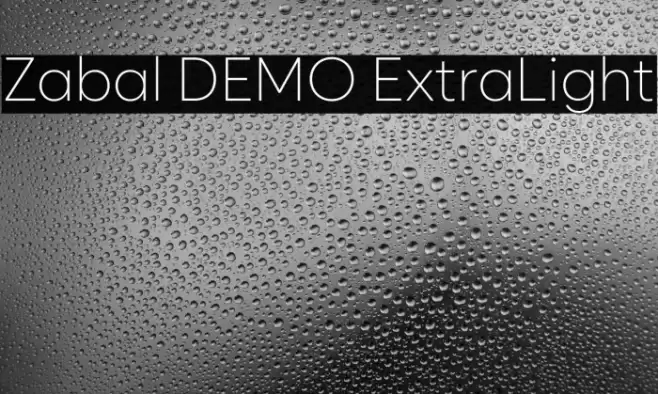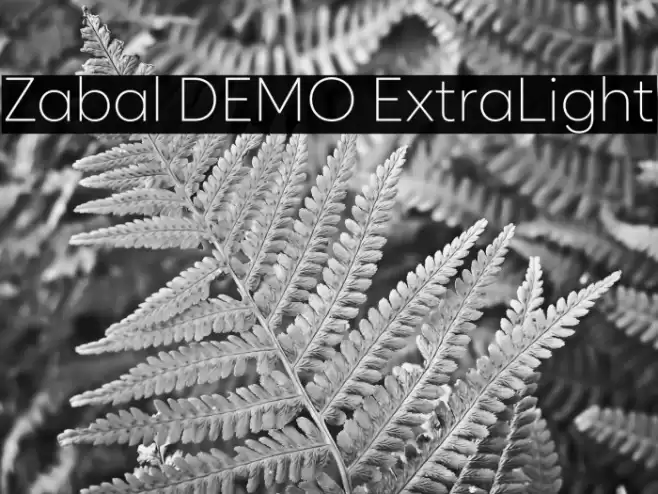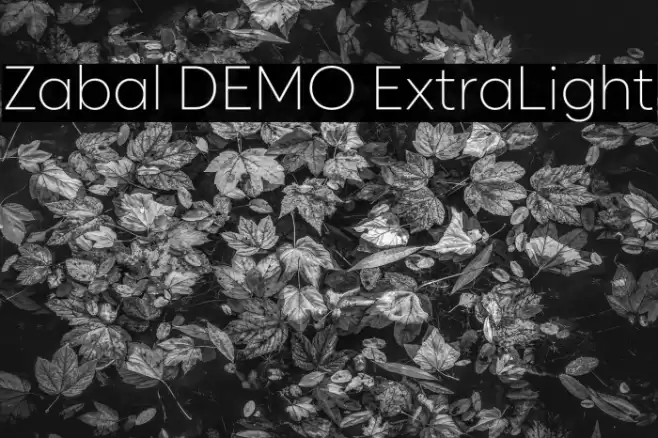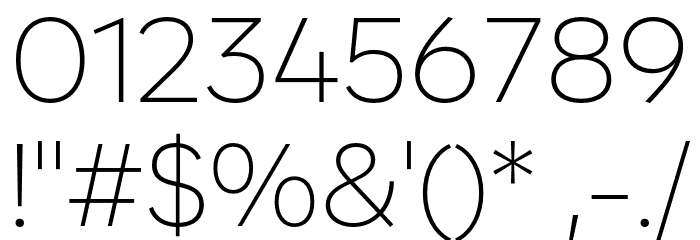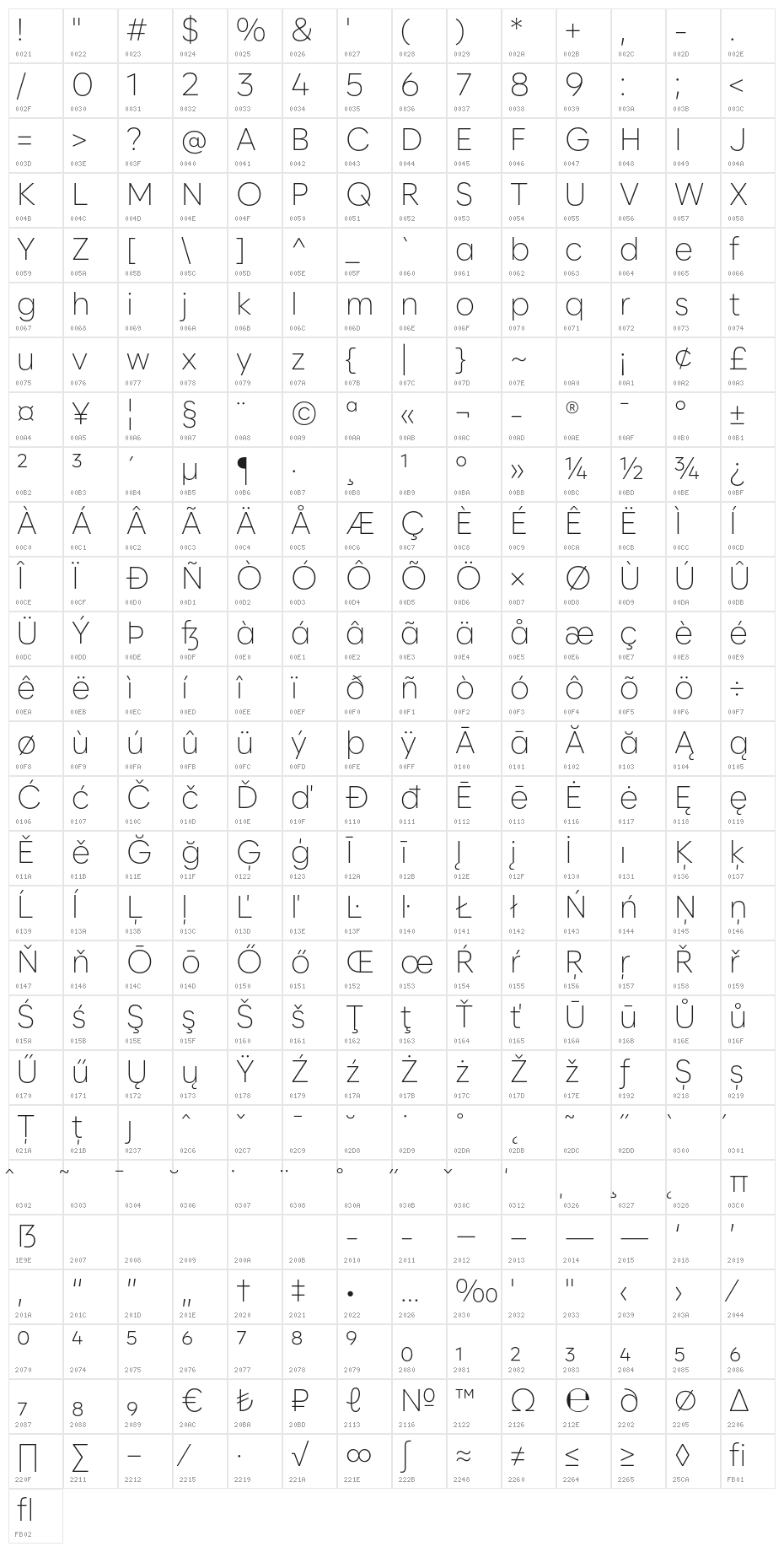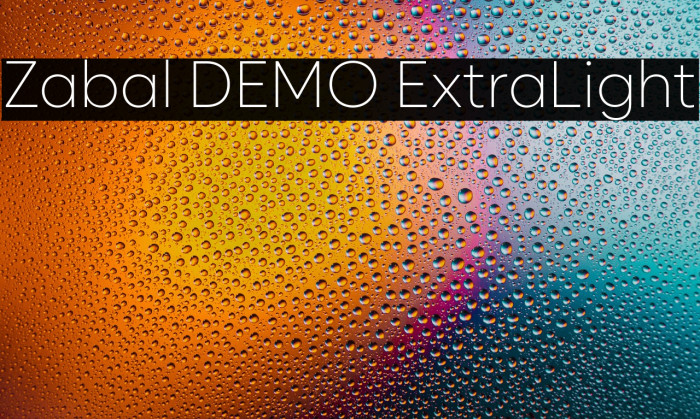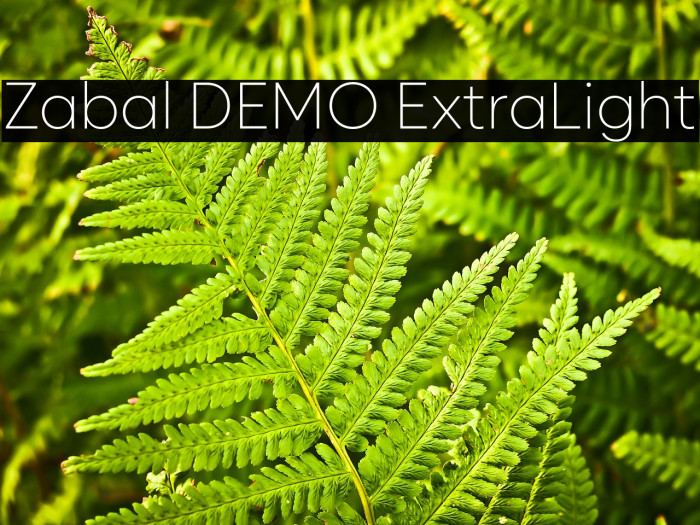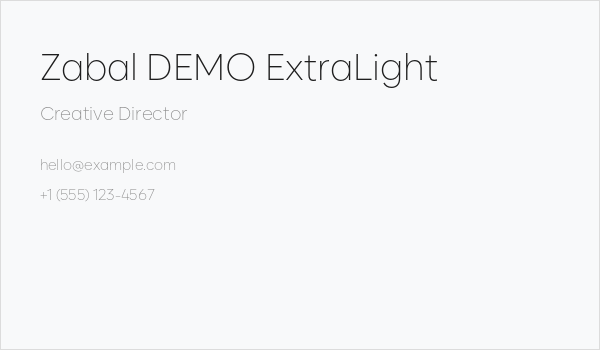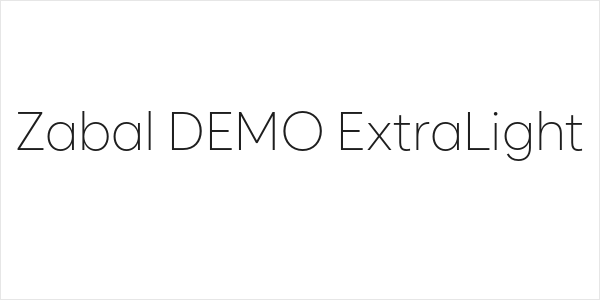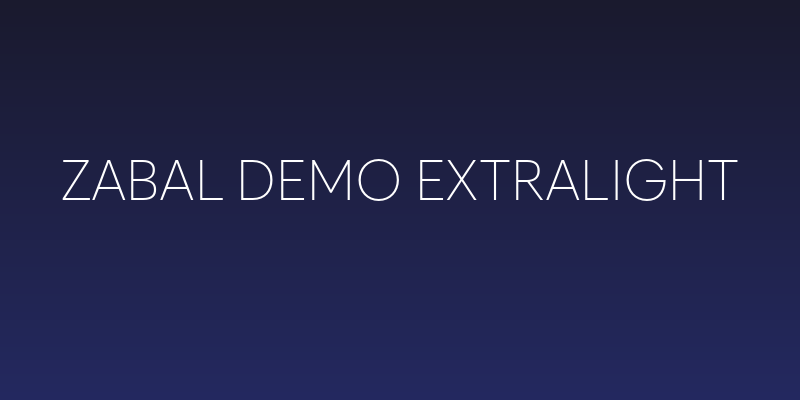
Zabal DEMO ExtraLight Font
Zabal DEMO ExtraLight Description
This typeface features a clean and minimalist design with an emphasis on clarity and readability. The characters are evenly spaced, with a geometric structure that gives a modern and sophisticated appearance. The thin strokes and uniform line weights contribute to a sense of elegance and simplicity. The font's design is versatile, making it suitable for a wide range of applications from digital interfaces to print media. Its legibility is maintained across various sizes, enhancing its functionality in both headlines and body text.
A clean, minimalist typeface with geometric structure and thin strokes from Uncategorized fonts.
- Proposed Projects: Ideal for modern branding, digital interfaces, editorial design, and minimalist posters.